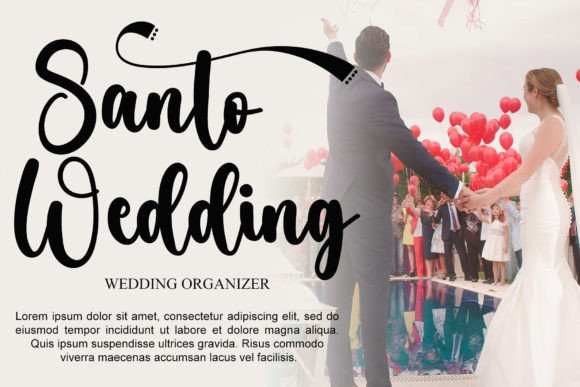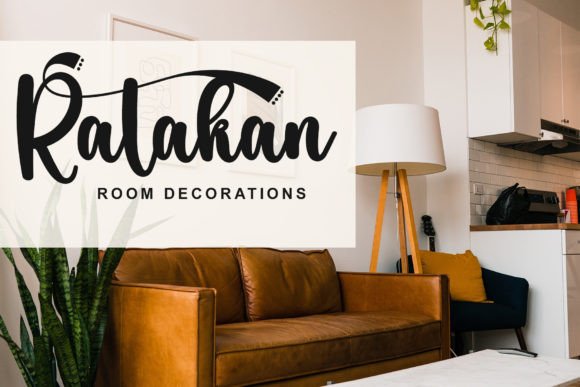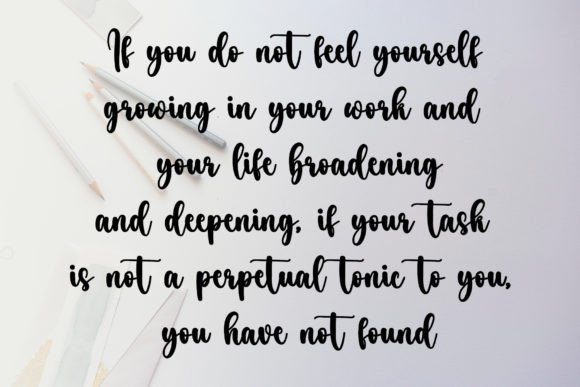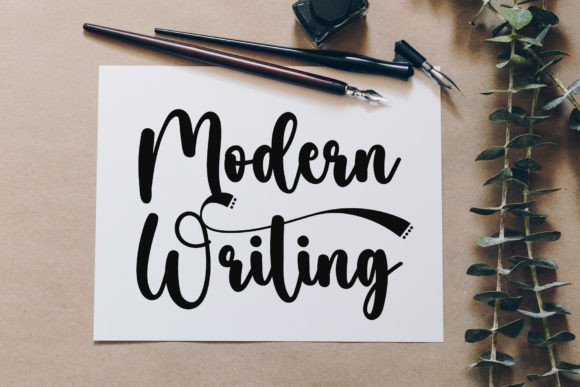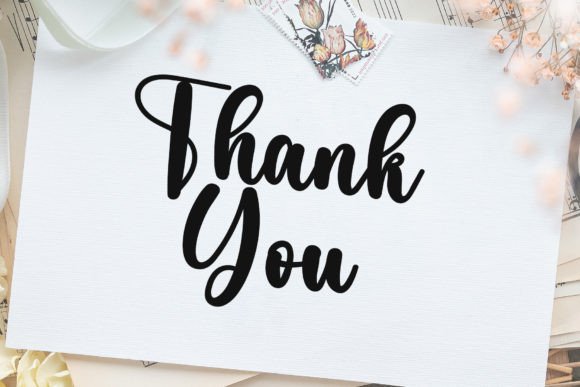
Introducing Anytimes Font: The Sweet and Elegant Cursive Handwritten Font
Are you looking for a font that can add a touch of elegance and romance to your designs? Look no further than Anytimes Font, a beautiful and cursive handwritten font that is perfect for a variety of design projects. In this article, we’ll take a closer look at the features and benefits of Anytimes Font, and explore how it can be used to elevate your designs.
What is Anytimes Font?
Anytimes Font is a sweet and cursive handwritten font that is designed to add a joyful and romantic touch to your projects. This gentle font is perfect for designers and crafters who want to create elegant and sophisticated designs without sacrificing a casual and approachable feel. With its flowing curves and delicate lines, Anytimes Font is sure to impress.
Key Features of Anytimes Font
So, what makes Anytimes Font so special? Here are just a few of its key features:
- Sweet and cursive handwritten style: Anytimes Font has a beautiful, handwritten look that is perfect for adding a personal touch to your designs.
- Elegant and romantic feel: This font has a sophisticated and elegant feel that is perfect for designs that require a touch of luxury.
- Versatile and flexible: Anytimes Font can be used for a wide range of design projects, from branding and logos to wedding designs and greeting cards.
- Casual and approachable: Despite its elegant feel, Anytimes Font still has a casual and approachable vibe that makes it perfect for designs that need to feel friendly and inviting.
Use Cases for Anytimes Font
So, what kinds of projects is Anytimes Font perfect for? Here are just a few ideas to get you started:
- Branding and logos: Anytimes Font is a great choice for brands that want to create a sophisticated and elegant image.
- Wedding designs: This font is perfect for wedding invitations, programs, and other stationery that needs to feel romantic and elegant.
- Greeting cards: Anytimes Font is a great choice for greeting cards that need to feel personal and heartfelt.
- Fashion and look books: This font is perfect for fashion designers who want to create a sophisticated and stylish look.
- Marketing promotions: Anytimes Font can be used to create eye-catching marketing materials that need to feel elegant and sophisticated.
Why Choose Anytimes Font?
So, why should you choose Anytimes Font for your next design project? Here are just a few reasons:
- Unique and distinctive look: Anytimes Font has a unique and distinctive look that will help your designs stand out from the crowd.
- Elegant and sophisticated feel: This font has an elegant and sophisticated feel that is perfect for designs that need to feel luxurious and high-end.
- Easy to read and use: Anytimes Font is easy to read and use, making it perfect for designs that need to be both beautiful and functional.
| Font Name | Anytimes Font |
| Author | 21Design |
In conclusion, Anytimes Font is a beautiful and elegant cursive handwritten font that is perfect for a wide range of design projects. With its sweet and cursive style, elegant and romantic feel, and versatile and flexible design, Anytimes Font is sure to impress. Whether you’re a designer, crafter, or DIY enthusiast, Anytimes Font is a great choice for anyone who wants to add a touch of elegance and sophistication to their designs.